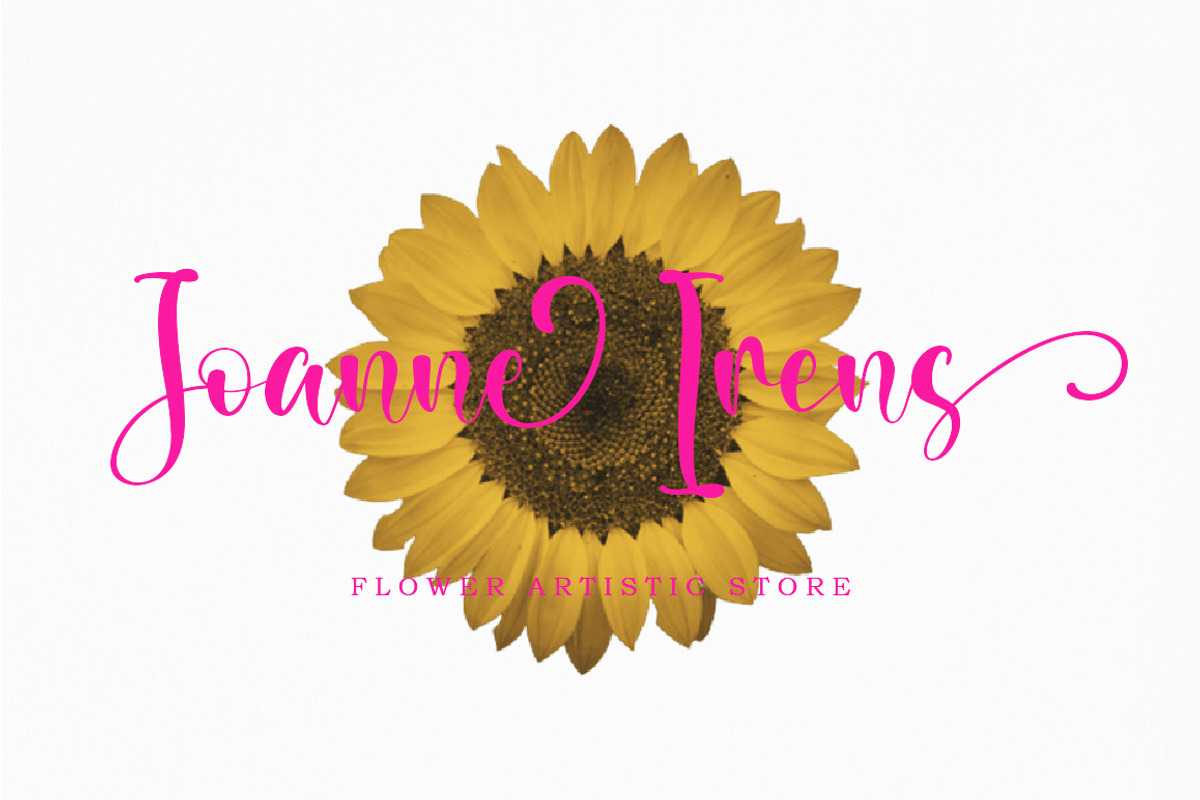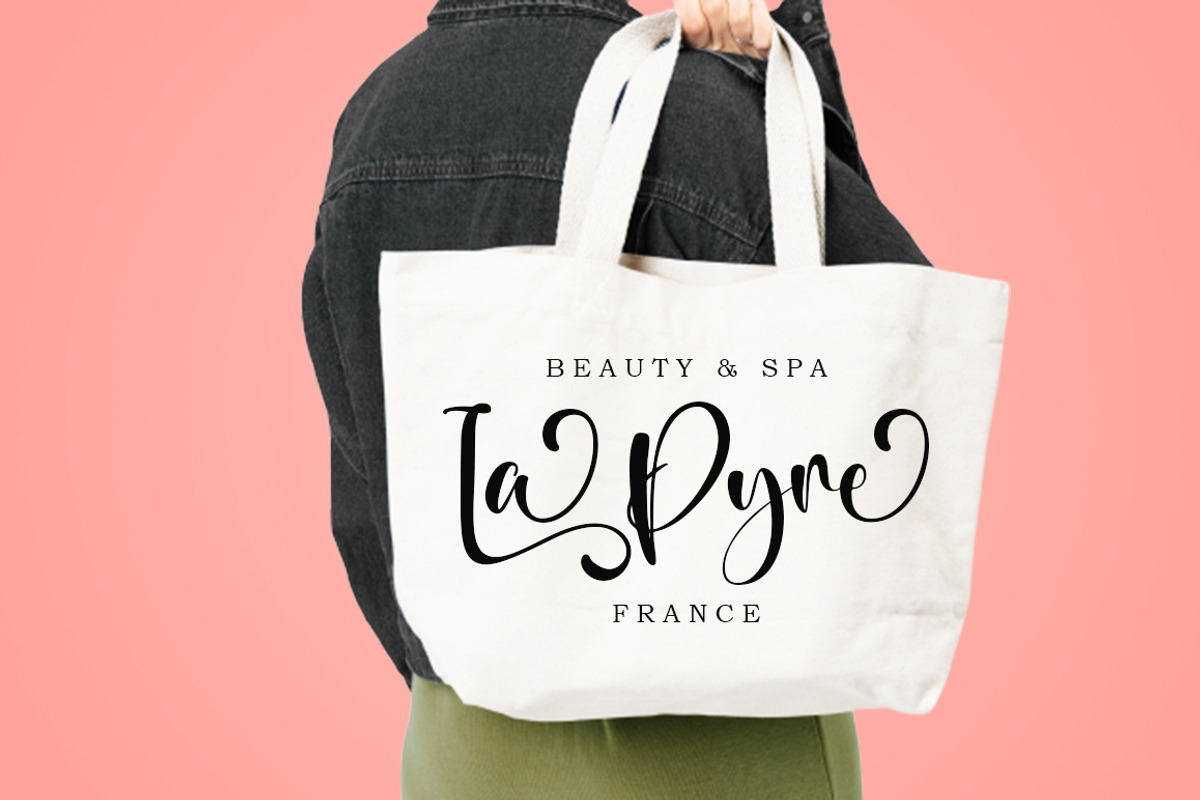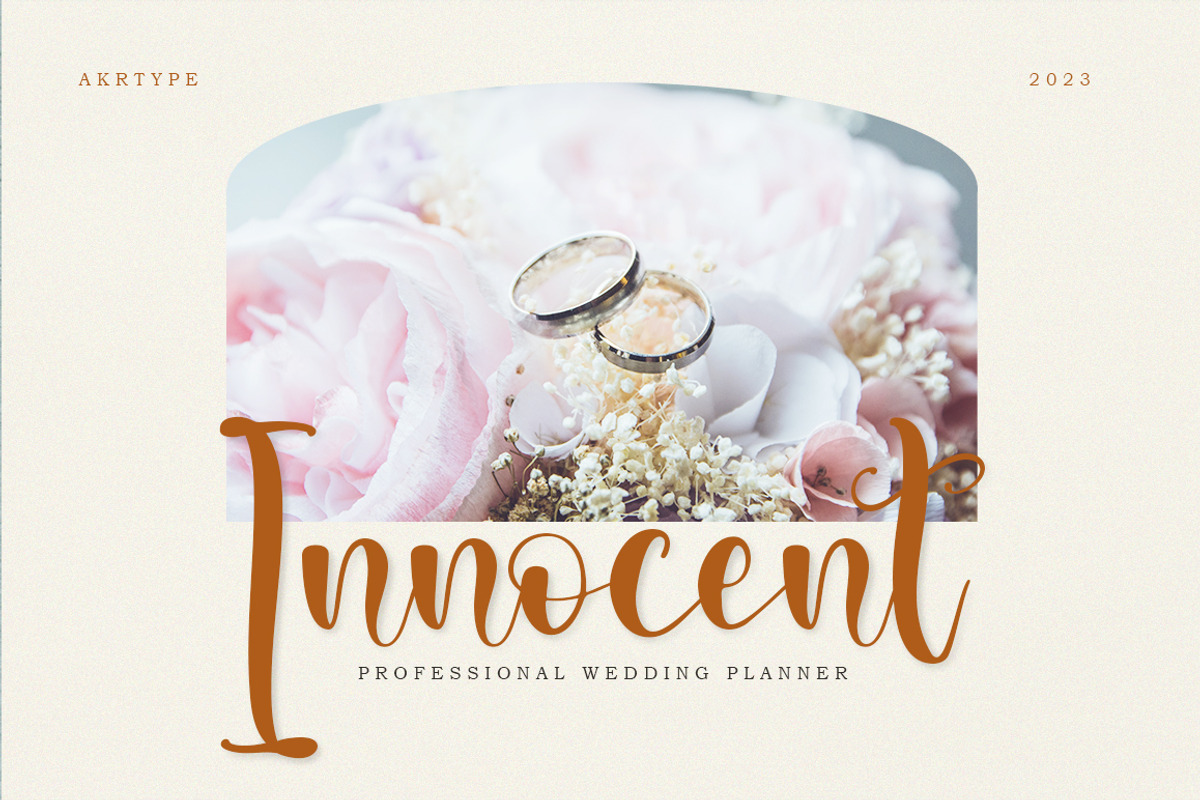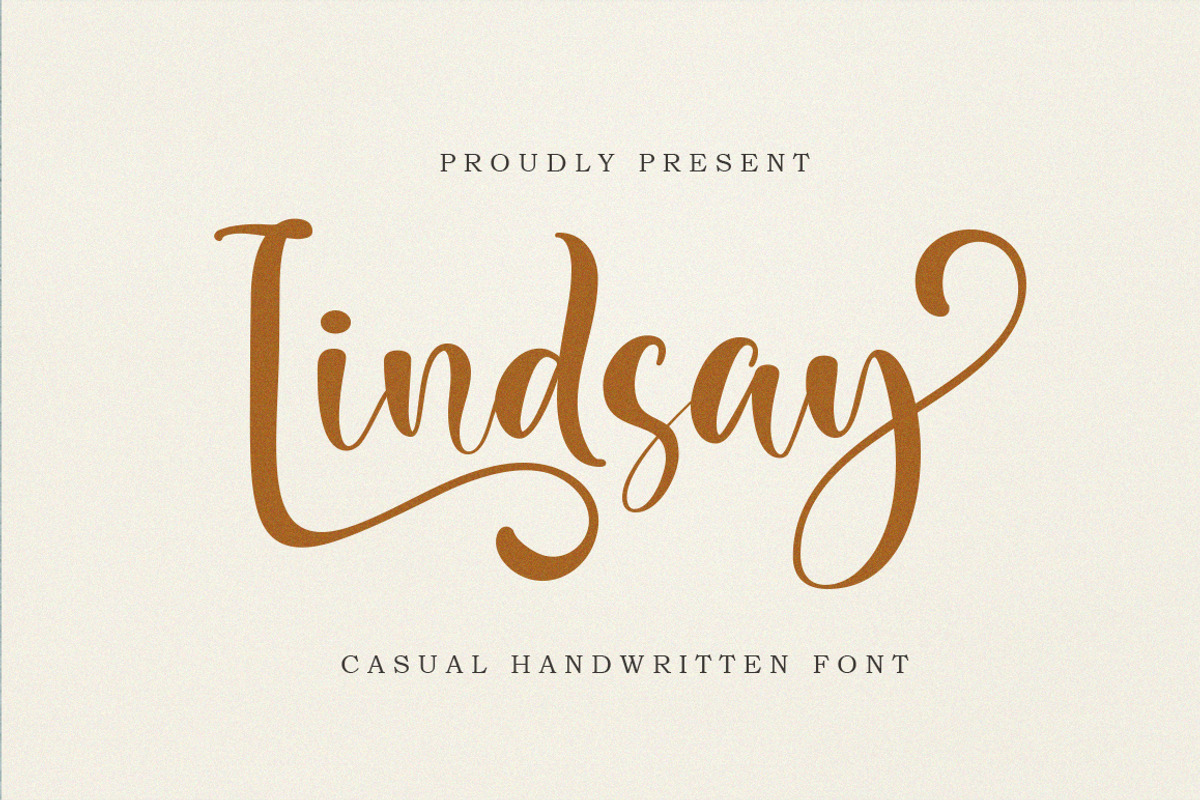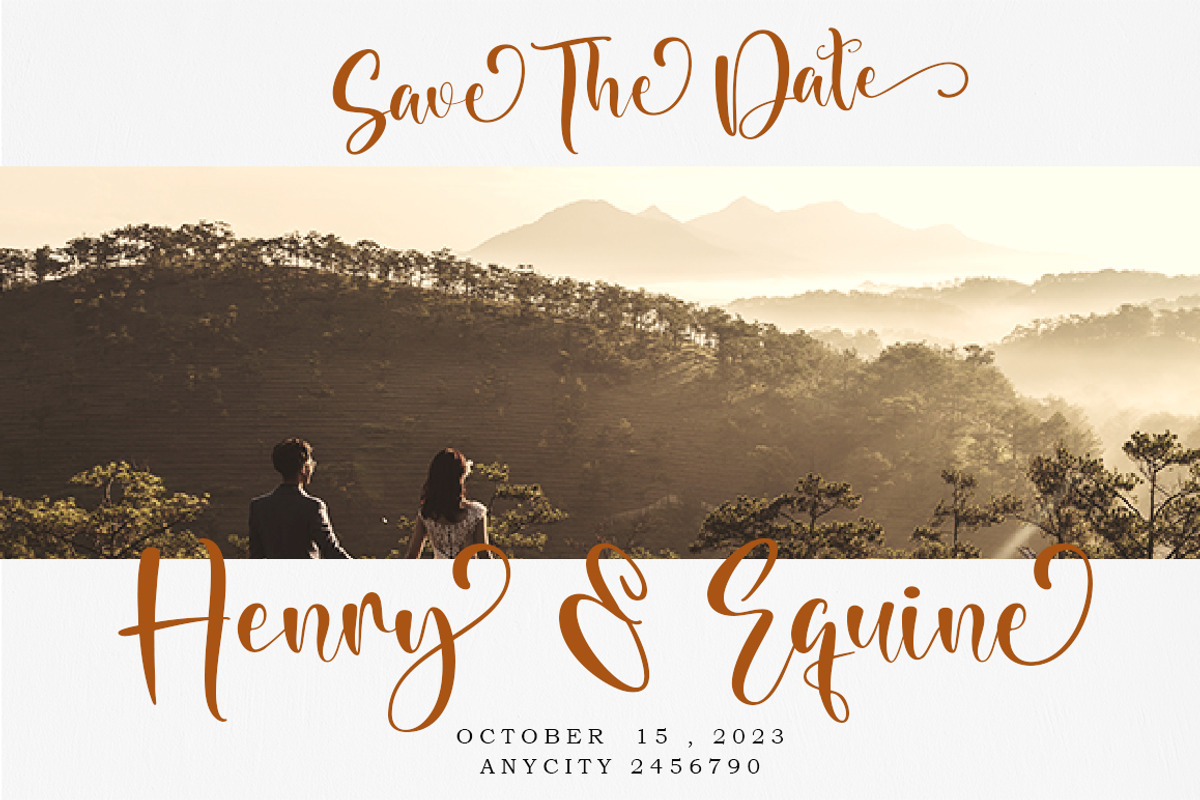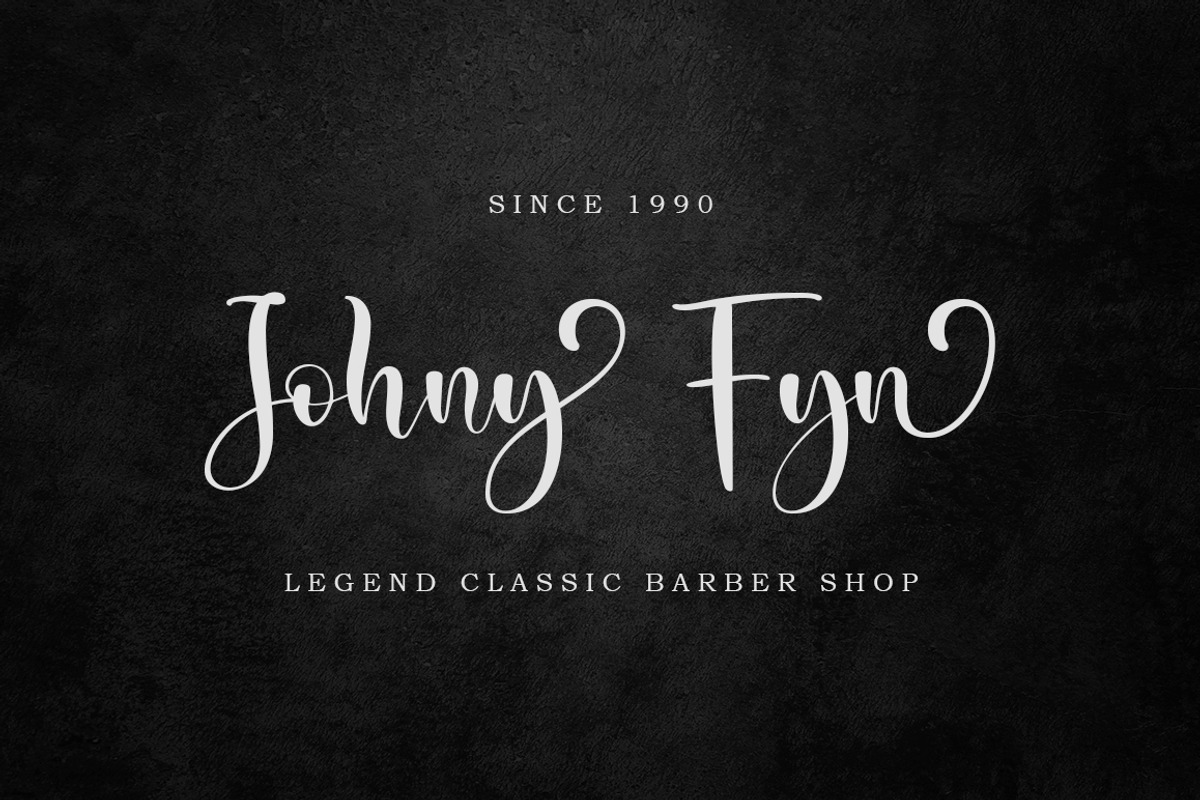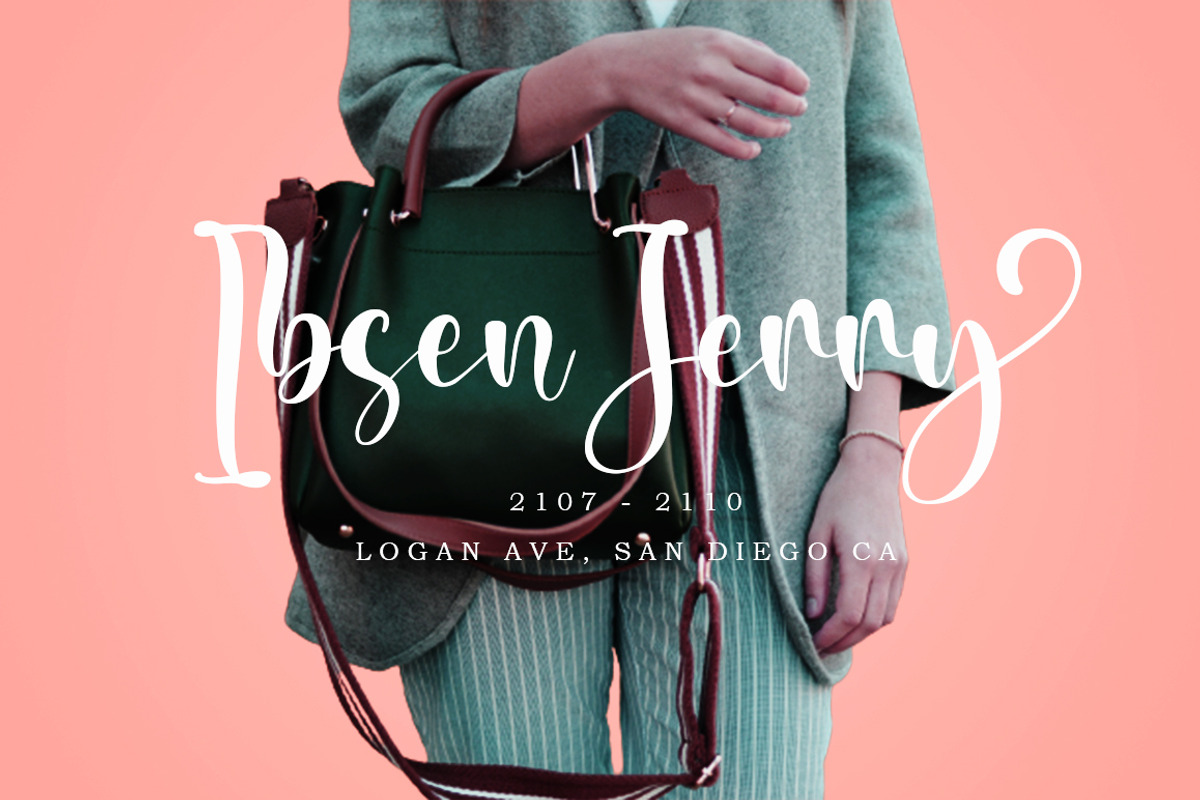
Lindsay Handwritten
Lindsay Handwritten font is a seductive font that is made with a touch of elegance and feeling to give the best touch.
Lindsay Handwritten font an elegant combination of a script. It is slender, feminine and classy, while still maintaining a friendly feel. Lindsay Handwritten font is versatile and will work perfectly for fashion, e-commerce brands, trend blogs, wedding boutiques or any business that wants to appear upscale and chic. With its stylistic character Lindsay Handwritten font is perfect for creating original and functional designs. It has extensive language support and alternates, stylistic sets that add visual interest to every letter.